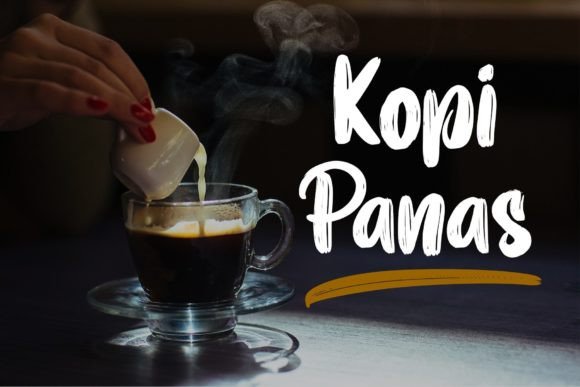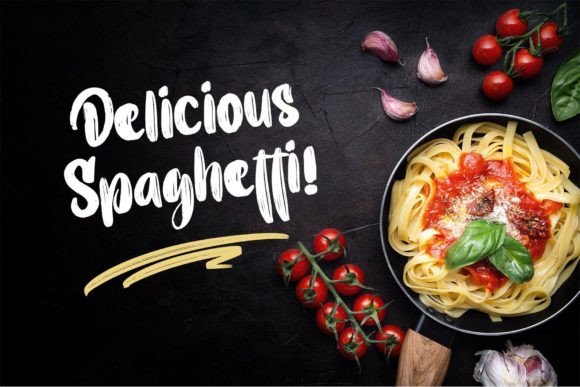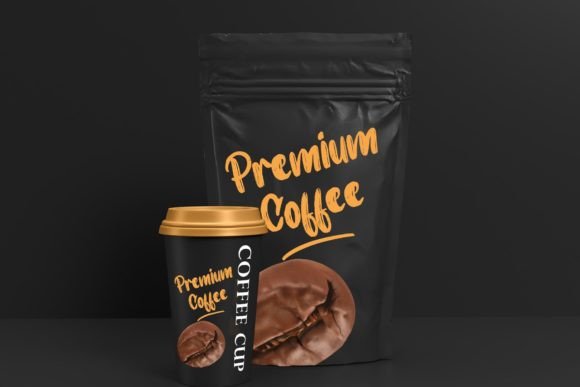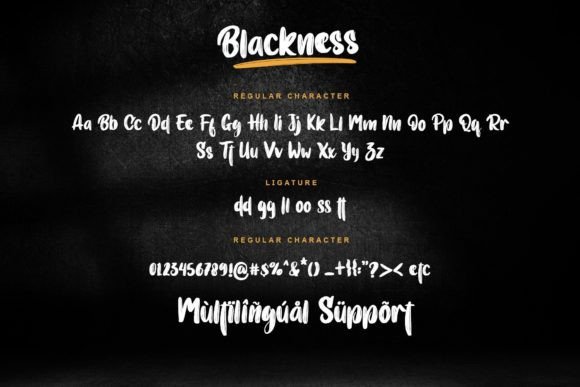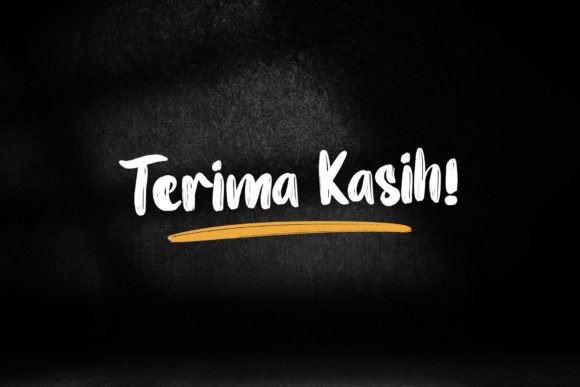
Introducing Blackness Font: A Unique and Elegant Handwritten Style
In the world of typography, a good font can make all the difference in the success of a design project. Whether you’re a graphic designer, a crafty DIY enthusiast, or a marketing professional, having access to a wide range of high-quality fonts is essential. That’s why we’re excited to introduce Blackness Font, a unique, strong, and original handwritten font that’s perfect for a variety of creative applications.
What is Blackness Font?
Blackness Font is a carefully crafted handwritten font that’s designed to add a touch of elegance and sophistication to your designs. With its natural and flowing lines, this font is perfect for creating headlines, titles, headings, logos, branding, posters, books, and many more. Its unique and original style sets it apart from other fonts, making it an excellent choice for designers and crafters looking to add some personality to their work.
Key Features of Blackness Font
- Unique and Original Style: Blackness Font boasts a one-of-a-kind design that’s sure to grab attention and leave a lasting impression.
- Handwritten with Love: This font is carefully crafted to mimic the natural flow and elegance of handwritten text, giving your designs a personal touch.
- PUA Encoded: Blackness Font is PUA (Private Use Area) encoded, which means you can easily access all the glyphs and swashes to add extra flair to your designs.
- Multipurpose: Use Blackness Font for a wide range of creative projects, from headlines and titles to logos, branding, posters, books, and more.
Why Choose Blackness Font?
With so many fonts available, why choose Blackness Font? Here are just a few reasons why designers and crafters love this font:
- Elegance and Sophistication: Blackness Font adds a touch of elegance and sophistication to any design, making it perfect for high-end branding, luxury products, and creative projects.
- Versatility: This font is incredibly versatile, and can be used for a wide range of creative applications, from digital designs to print materials.
- Easy to Use: With its PUA encoding, Blackness Font is easy to use and customize, even for designers who are new to font editing.
- Unique and Memorable: Blackness Font is sure to grab attention and leave a lasting impression, making it perfect for designers who want to create memorable and impactful designs.